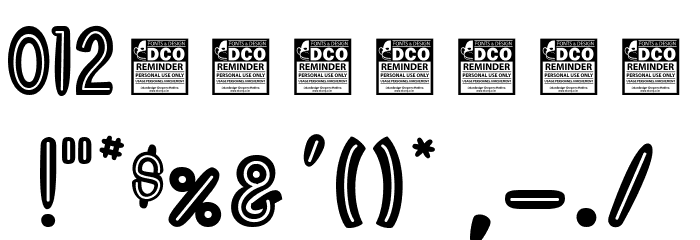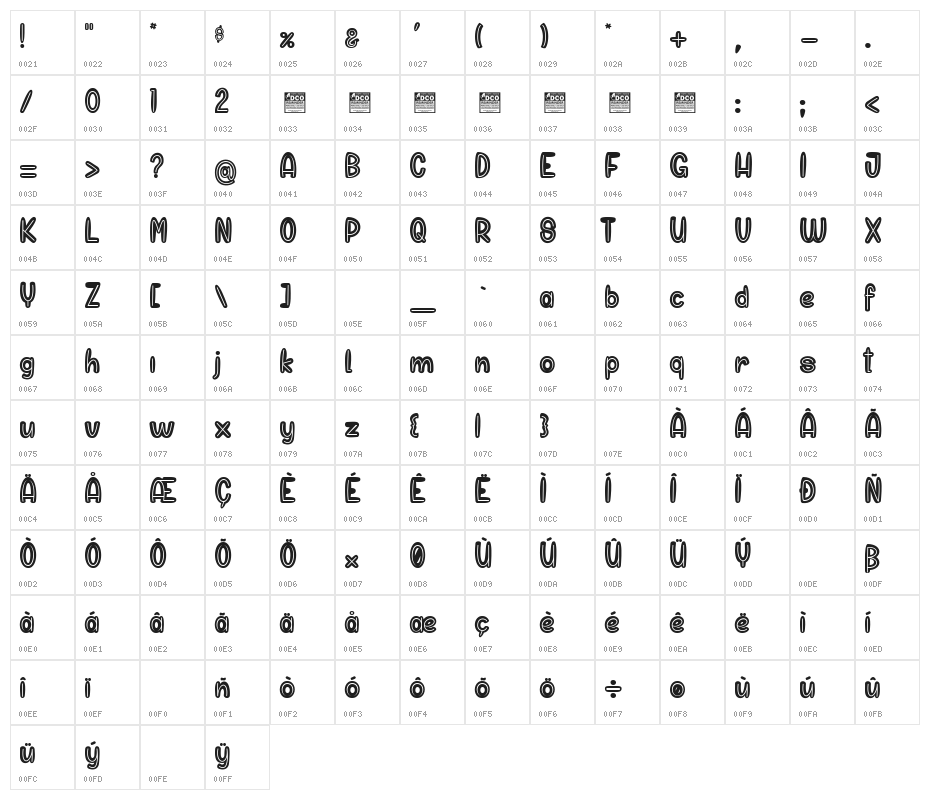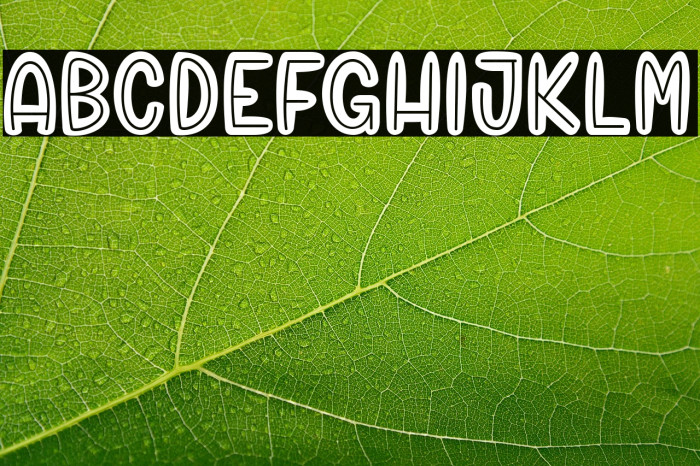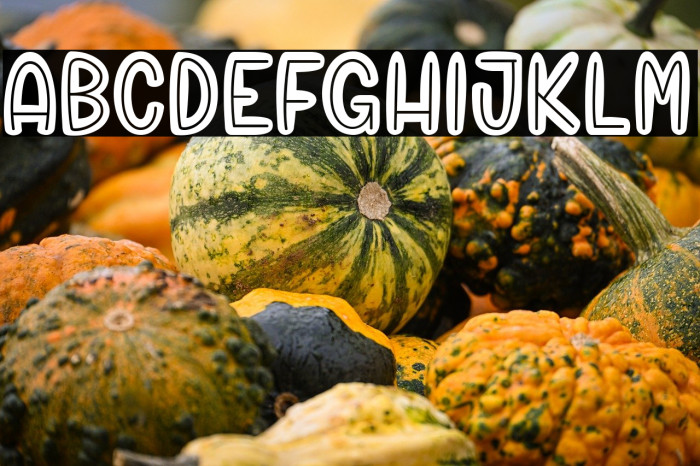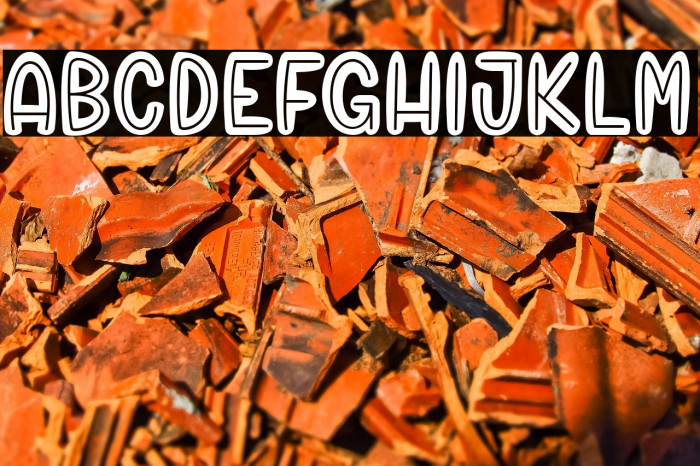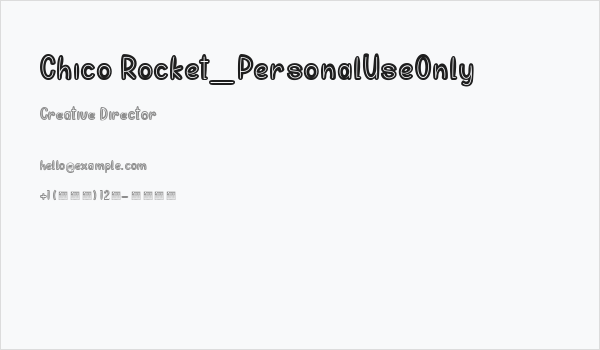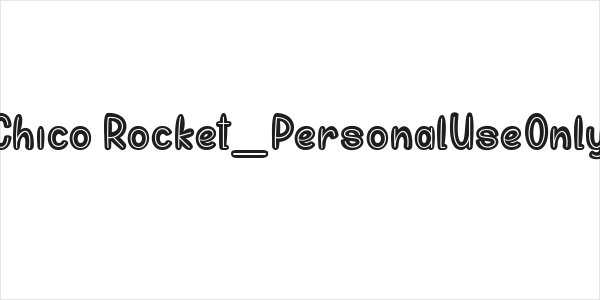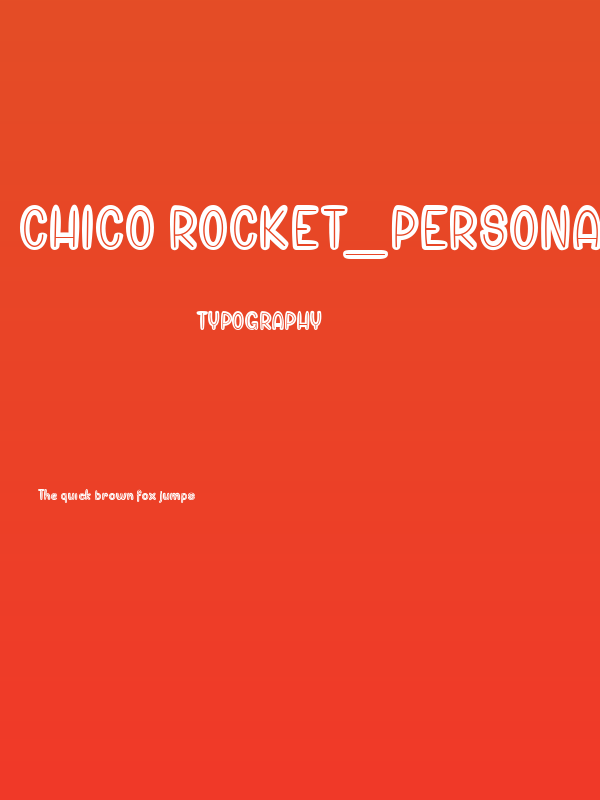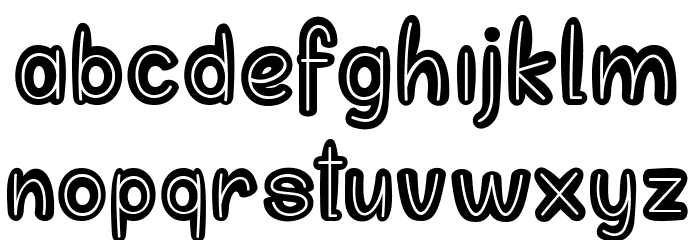
Chico Rocket_PersonalUseOnly Font
Chico Rocket_PersonalUseOnly Description
This font features a bold, playful style with a thick outline around each character, giving it a cartoonish and lively appearance. The characters are rounded and have a consistent thickness, contributing to a cohesive and friendly look. The uppercase and lowercase letters maintain a uniform height, while the numbers and special characters are designed to match the overall aesthetic. This font's unique outline style makes it stand out, perfect for projects that require a fun and engaging visual element.
| Overall Style | Playful, Cartoonish, Fun |
| Proposed Projects | Ideal for children's books, comic strips, playful branding, and posters. |